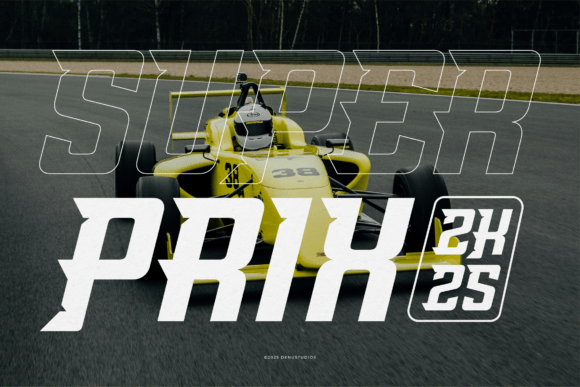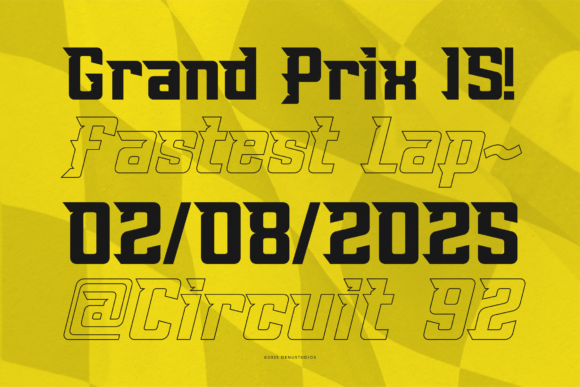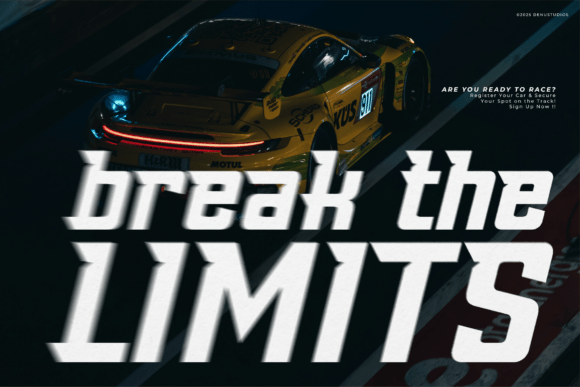
Amang Racing Font
Feel the adrenaline rush with Amang Racing, a bold, high-energy typeface designed for speed and power. With its sharp angles and slanted structure, this font is perfect for motorsports branding, racing posters, sports apparel, and futuristic designs. Whether you’re creating a dynamic logo or an action-packed headline, Amang Racing will take your design to the finish line.